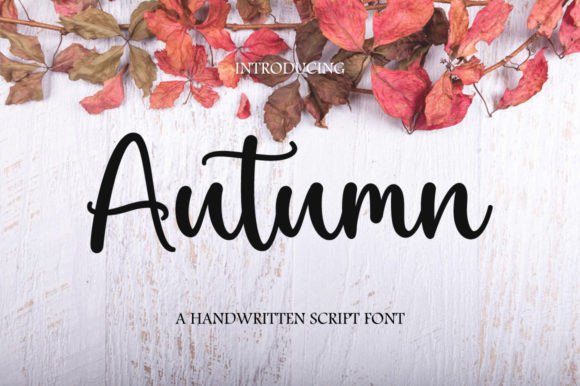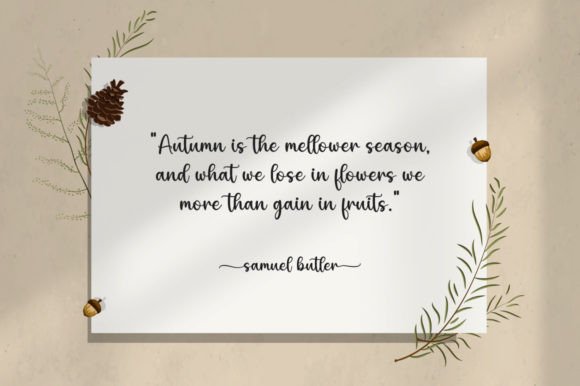
Introducing Autumn Font
The Autumn Font is a lovely and timeless handwritten typeface celebrated for its versatility and enduring appeal. This font offers a visually appealing and adaptable choice suitable for various design applications. Its charm lies in its ability to convey elegance and timelessness with its handwritten script style.
Why Choose This Typeface?
- Timeless Elegance: Autumn adds sophistication to your designs, making it suitable for logos, branding, quotes, and more.
- Versatile Usage: This font provides a visually captivating choice for various creative endeavors, allowing you to infuse your designs with character and style.
Applications of Autumn
- Logos: Use this font to create elegant logos that capture attention.
- Branding: Enhance your brand identity with a script style that conveys timeless elegance.
- Quotes: Perfect for adding a stylish script aesthetic to quotes and other creative projects.
The Impact of Using Autumn
This font elevates your designs by making them visually captivating and memorable. It becomes a reliable tool for designers seeking to create projects that stand out with elegance. Its balanced form ensures your designs are both refined and captivating.
The Value It Brings
This typeface excels in combining contemporary design aesthetics with classic elegance. By choosing Autumn, you ensure your designs are not only visually appealing but also sophisticated and unique. Additionally, its PUA encoding allows easy access to all glyphs and ligatures for added customization.
This font is also ideal for various creative projects beyond traditional uses. It can enhance digital designs with its elegant flair, making it suitable for websites, brochures, or mobile interfaces. The Autumn Font adapts well to different screen sizes while maintaining its charm. As design trends evolve, this font remains relevant due to its timeless appeal, balancing style with functionality effectively.